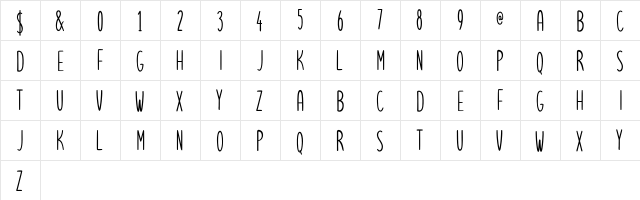
Lets get crazy sans Regular
| Foundry | Pedro Alexandre Vilas Boas Teixeira |
| Designer | Pedro Alexandre Teixeira |
Design Context for Lets get crazy sans Typeface
Lets get crazy sans is a composed and adaptable typeface that performs quietly and consistently across a wide range of design contexts.
Pro Tip: Use Lets get crazy sans in both headline and body roles to test its range before committing to a single application.